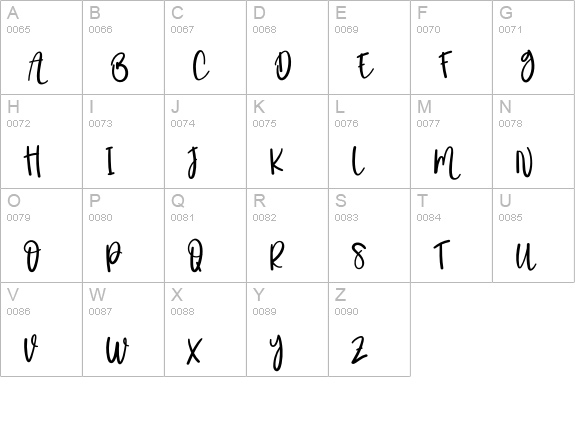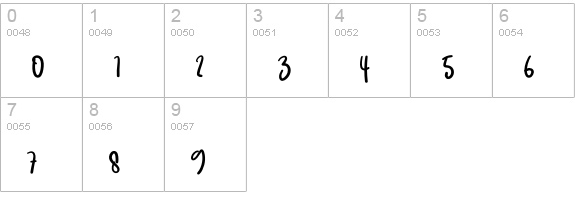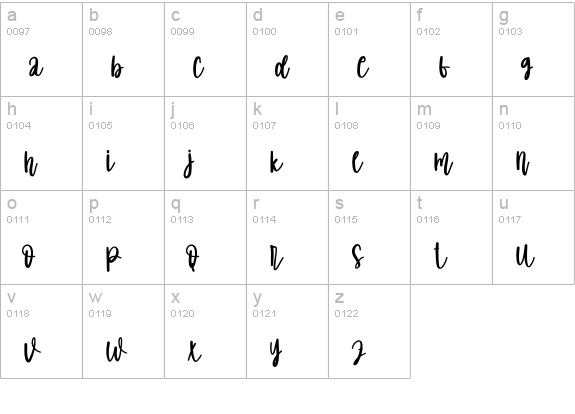
Introducing the delightful Watermelon Shortcake font, a whimsical and playful typeface that exudes charm and sweetness. Perfect for adding a touch of fun to your projects, this font embodies the essence of summer with its refreshing and vibrant design. The Watermelon Shortcake font features a unique blend of bold and curvy letterforms, making it a standout choice for branding, invitations, posters, and more.